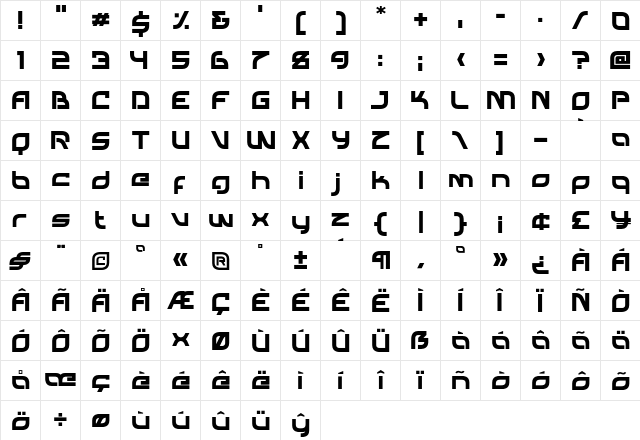
Klunk OT Bold
Design Context for Klunk OT Typeface
Klunk OT is a composed and adaptable typeface that performs quietly and consistently across a wide range of design contexts. The heavy weight commands attention and anchors typographic hierarchies.